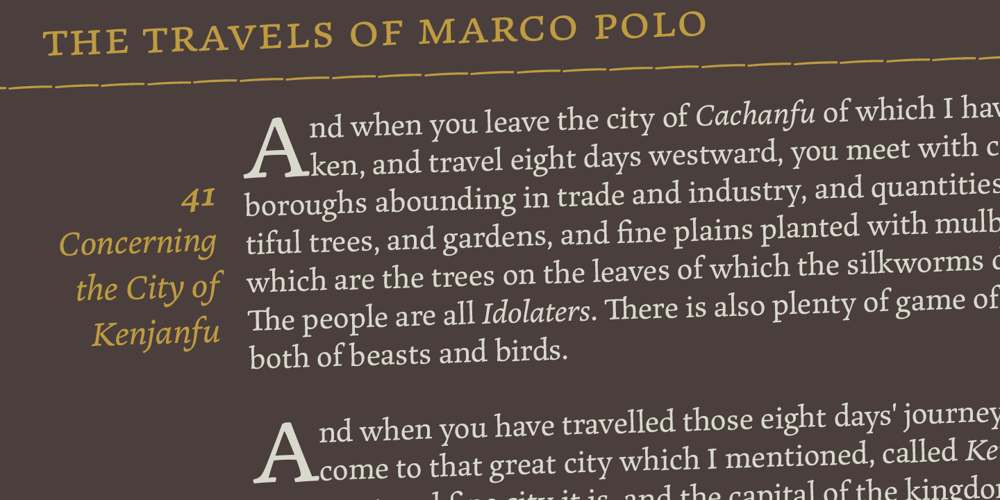
Marco Font Family was designed by Toshi Omagari and published by TypeTogether. Marco contains 6 styles and family package options. Marco is a lively text face, with an informal touch, inspired by 15th century Italian letter-forms with strong calligraphic traces and intended to be used primarily in continuous and intensive reading conditions. Marco is full of features required for high-quality book typography, including: strong language-support in extended Latin, Cyrillic and polytonic Greek, a multitude of swashes in the italic styles of Latin and Cyrillic, stylistic alternates to obtain the best possible solutions and other typographic niceties. Inspiration for Marco goes back to Italian humanist typography such as those of Nicholas Jenson or Aldus Manutius, and general influences from calligraphy. As a result, Marco has matured into a personal and unique text face where its lively and somewhat informal style is an ideal counterpart to its careful and ingenious crafting. Toshi Omagari’s Marco features a huge set of over 1900 characters per style —and almost 2600 in the italics— and is available in Regular, SemiBold, Bold with matching Italics.